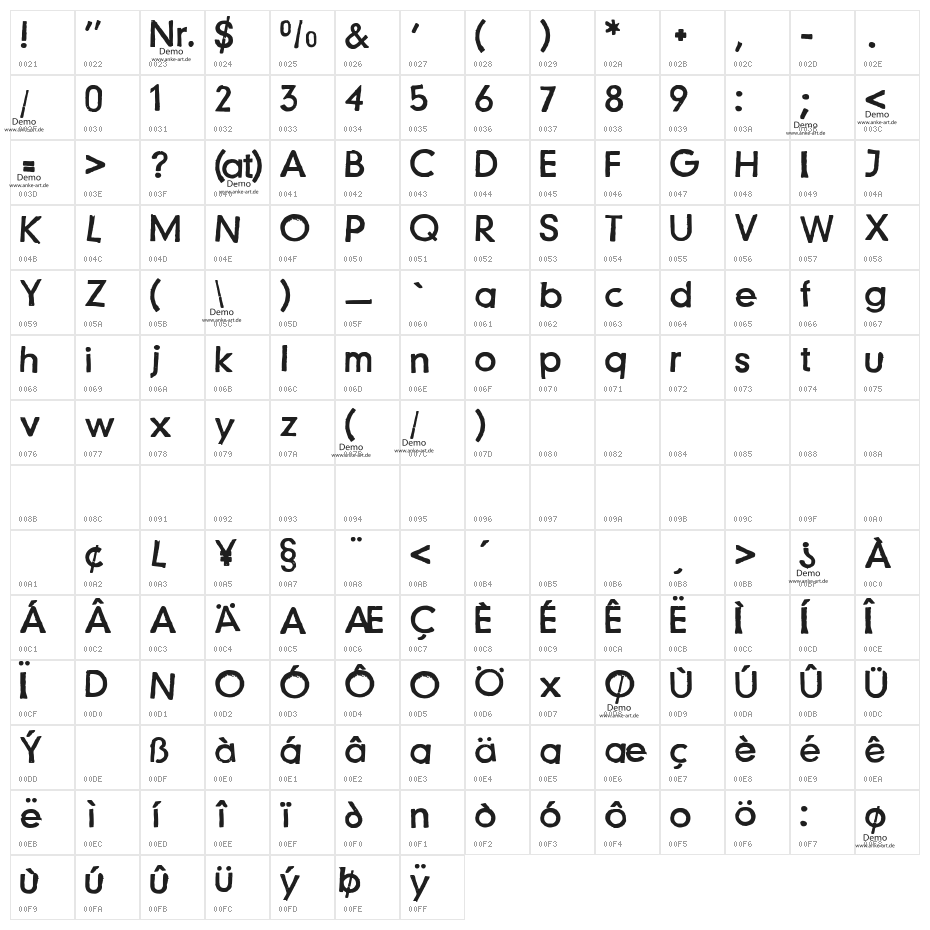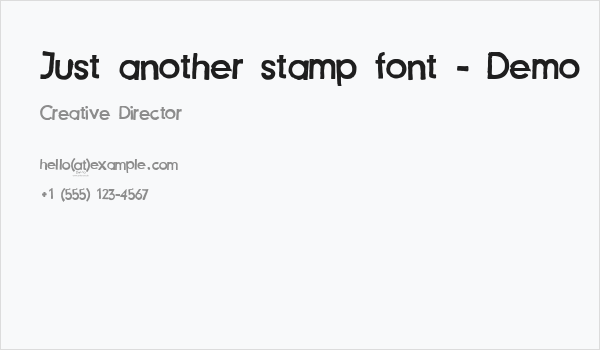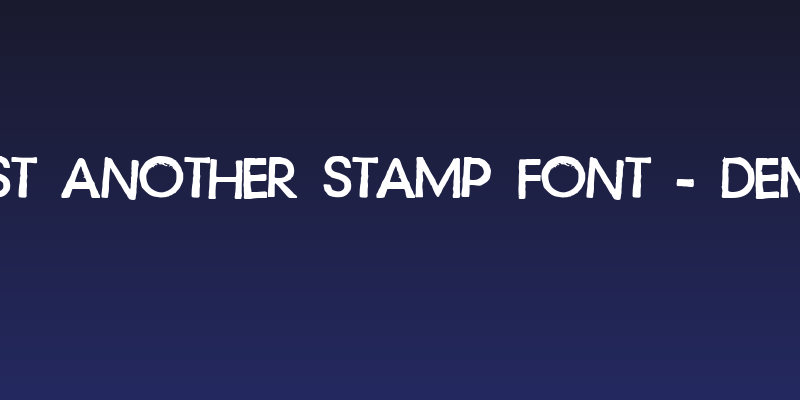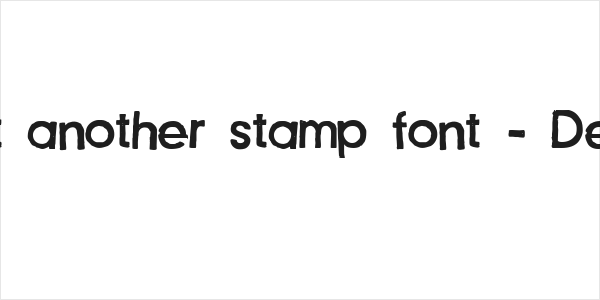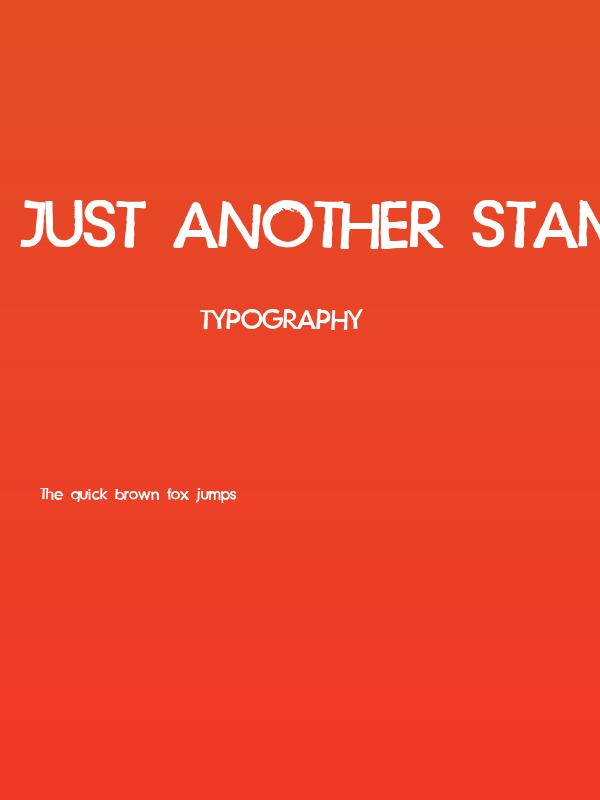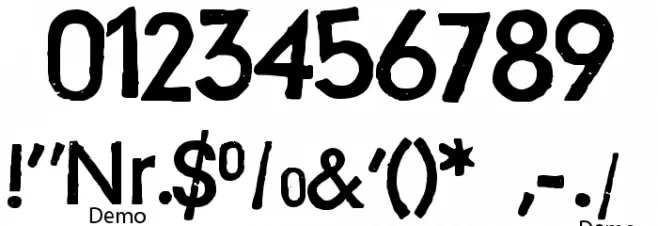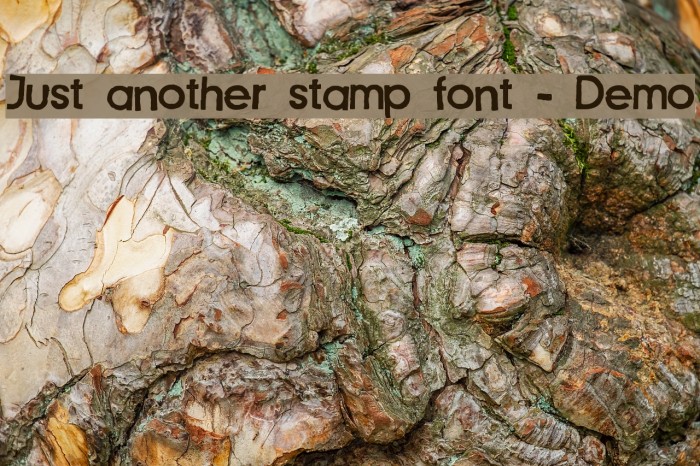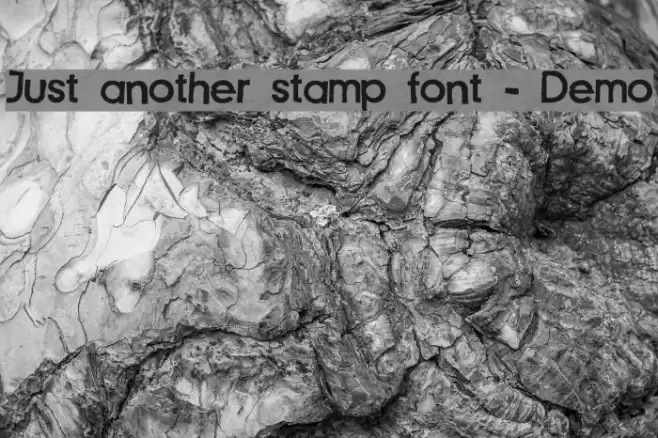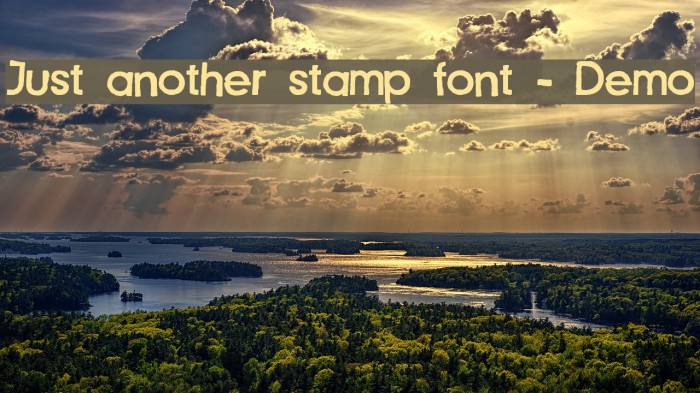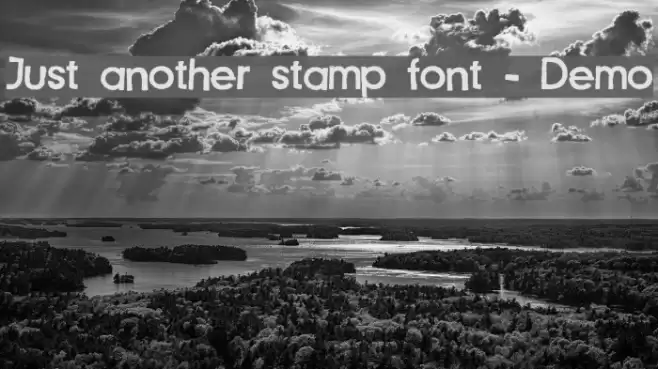
Just another stamp font - Demo Font
Just another stamp font - Demo Description
This font features a bold, hand-drawn style reminiscent of vintage rubber stamps. The characters are slightly irregular, giving them a playful and informal appearance. The uppercase and lowercase letters maintain a consistent weight, with rounded edges and a slightly distressed texture that adds to the rustic charm. The numerals and special characters follow the same aesthetic, ensuring a cohesive look across all text. This font's unique character makes it ideal for projects that require a touch of nostalgia or a handcrafted feel.
| Overall Style | Vintage |
| Use Case | Logos, Headlines, Posters |
| Proposed Projects | Ideal for branding, packaging, posters, and any design requiring a handcrafted, vintage touch. |